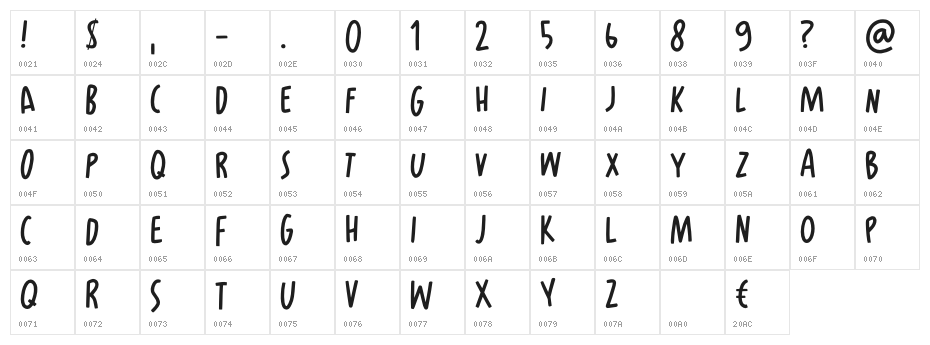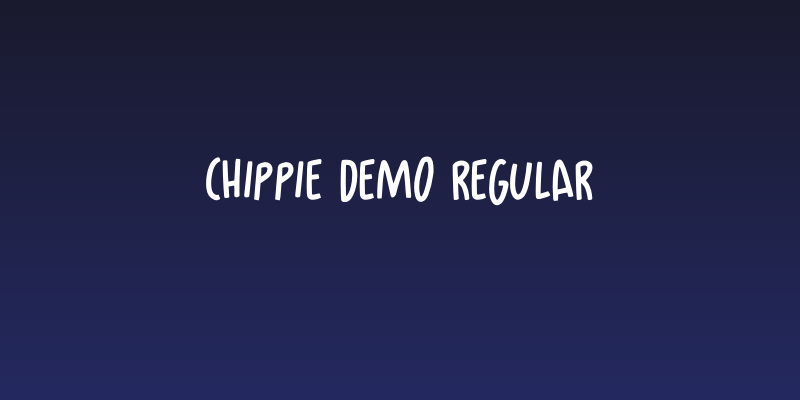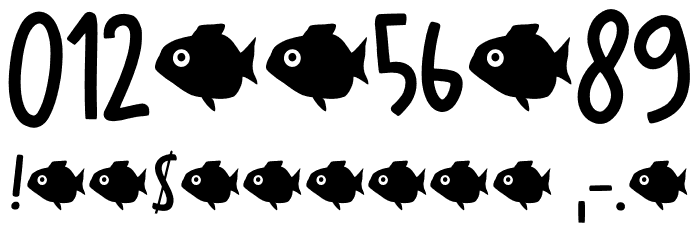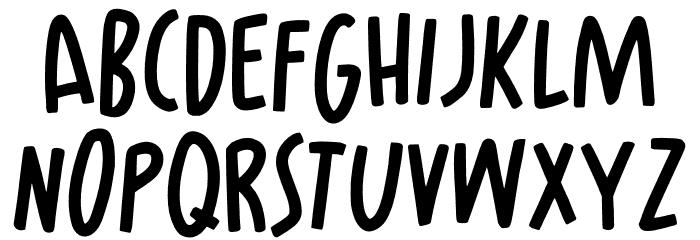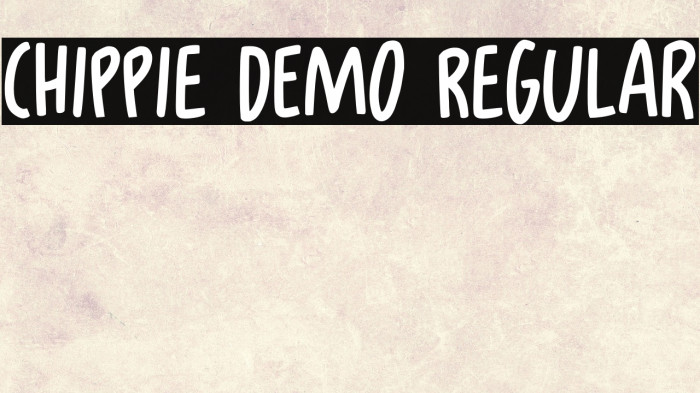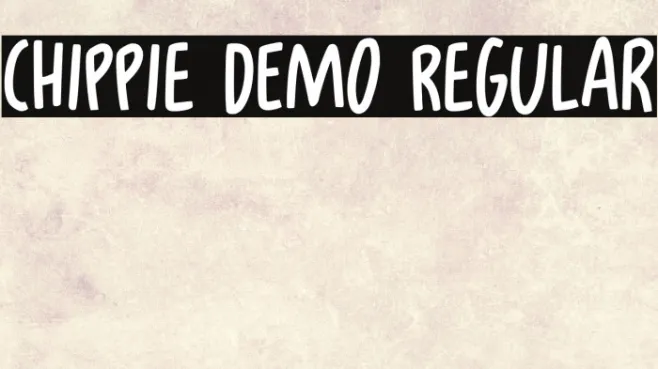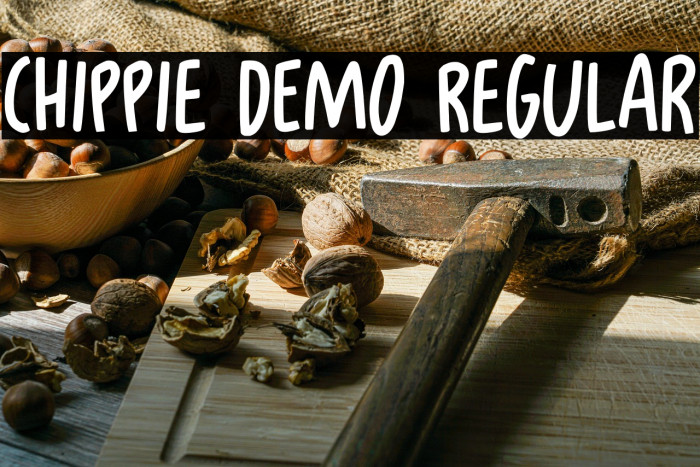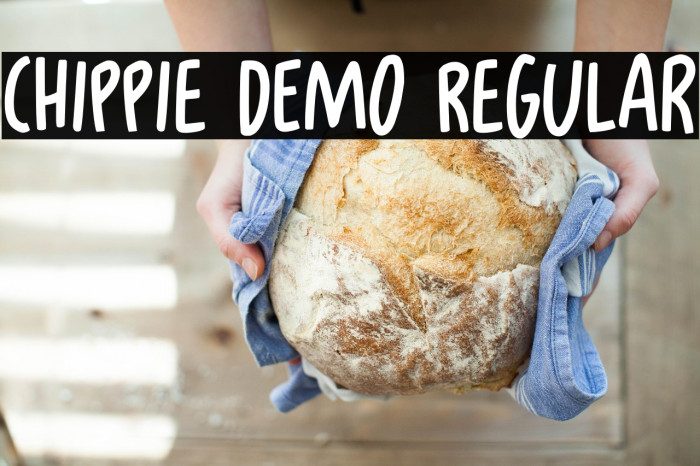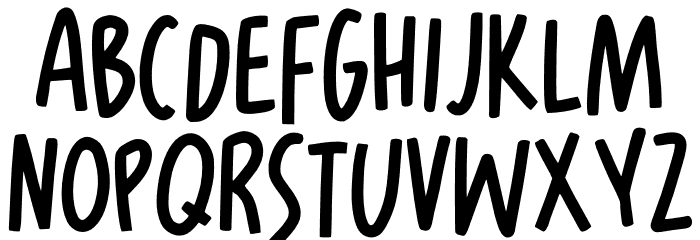
Chippie DEMO Regular Font
Chippie DEMO Regular Description
This playful and whimsical font features a hand-drawn style with irregular, slightly wavy lines that give it a casual and friendly appearance. The characters are bold and have a consistent stroke width, which adds to their readability. The font includes both uppercase and lowercase letters, numbers, and a selection of special characters. Its unique design is characterized by rounded edges and a slightly condensed form, making it suitable for informal and creative projects. The overall style is reminiscent of a handwritten note, adding a personal touch to any text.
| Proposed Projects | Ideal for children's books, greeting cards, playful branding, and creative posters. |